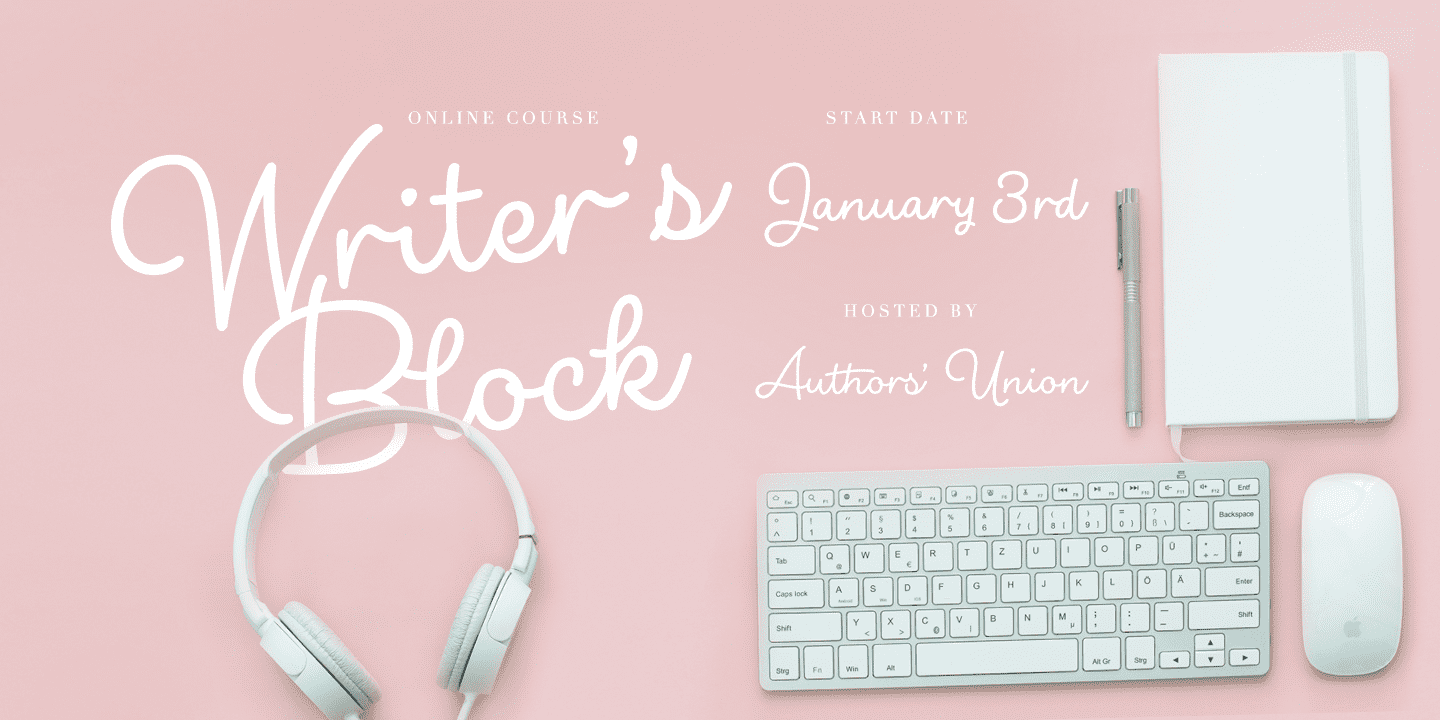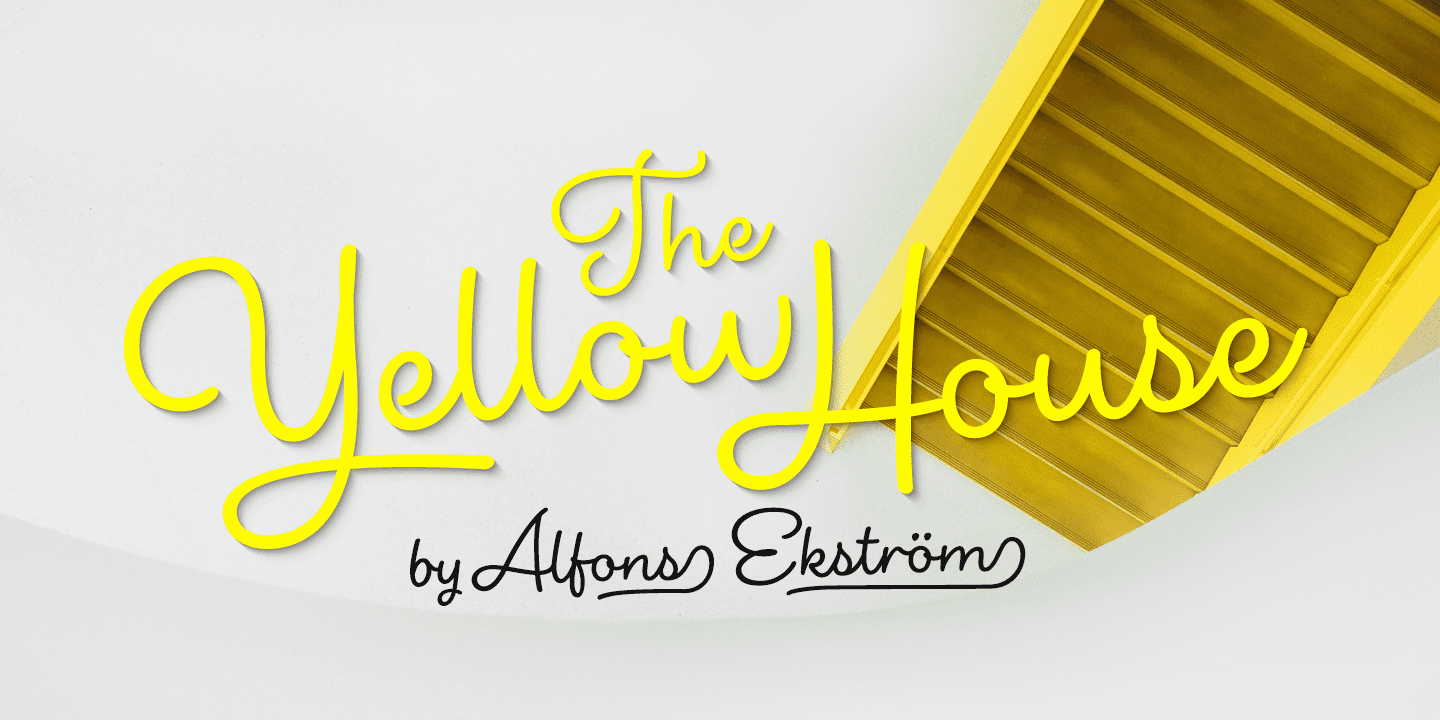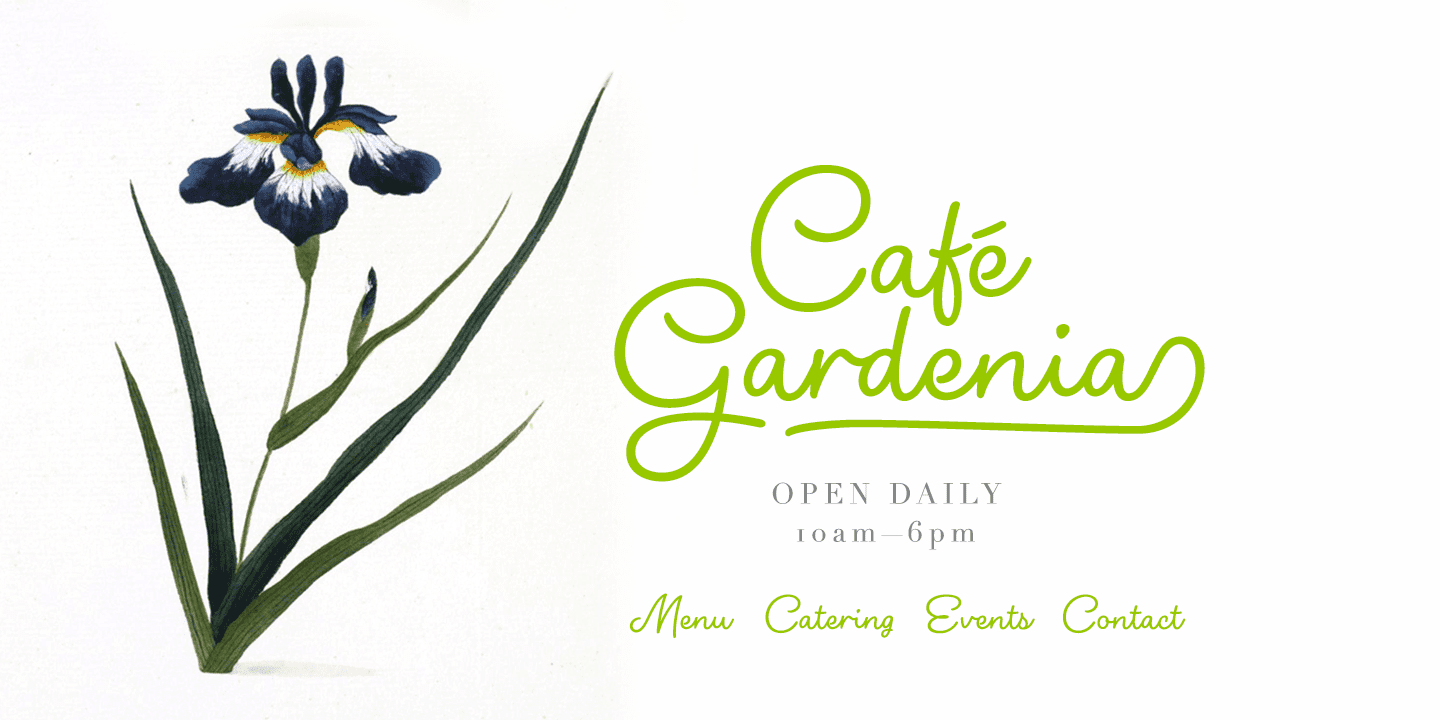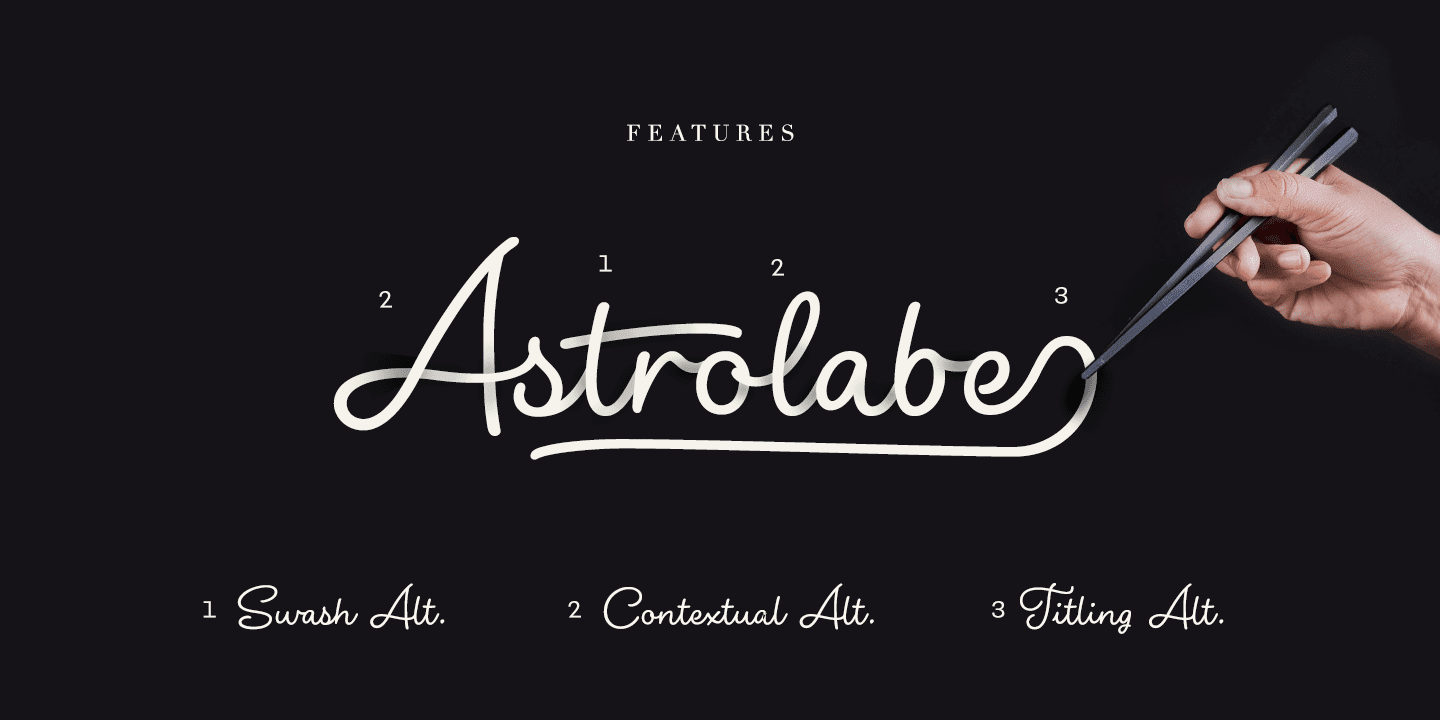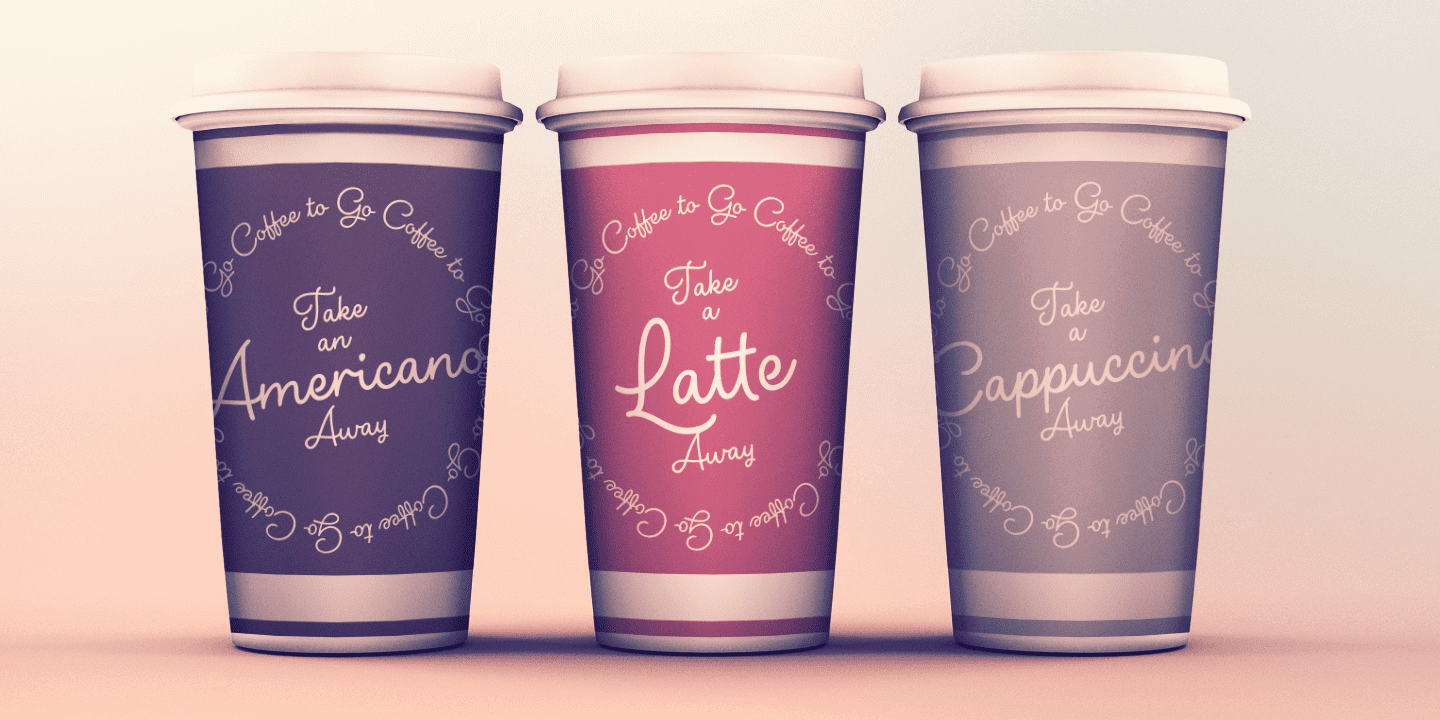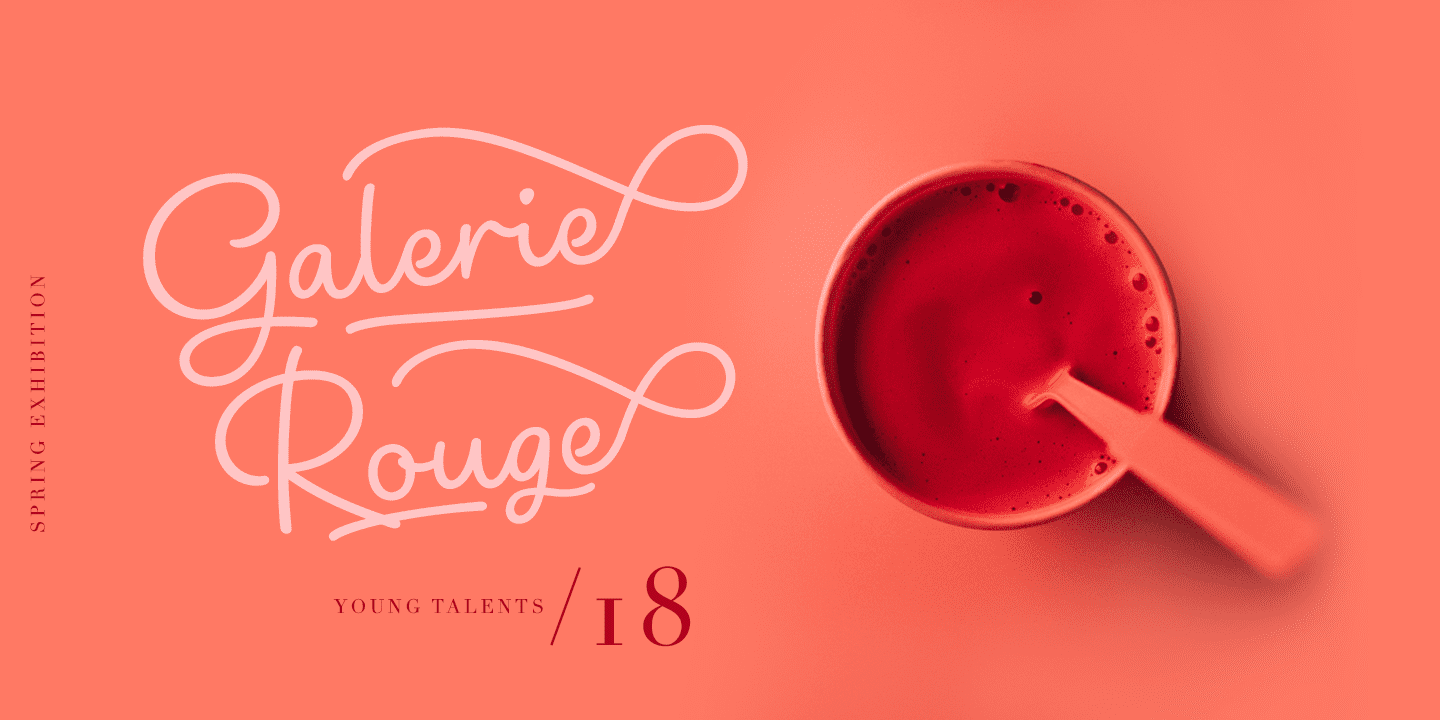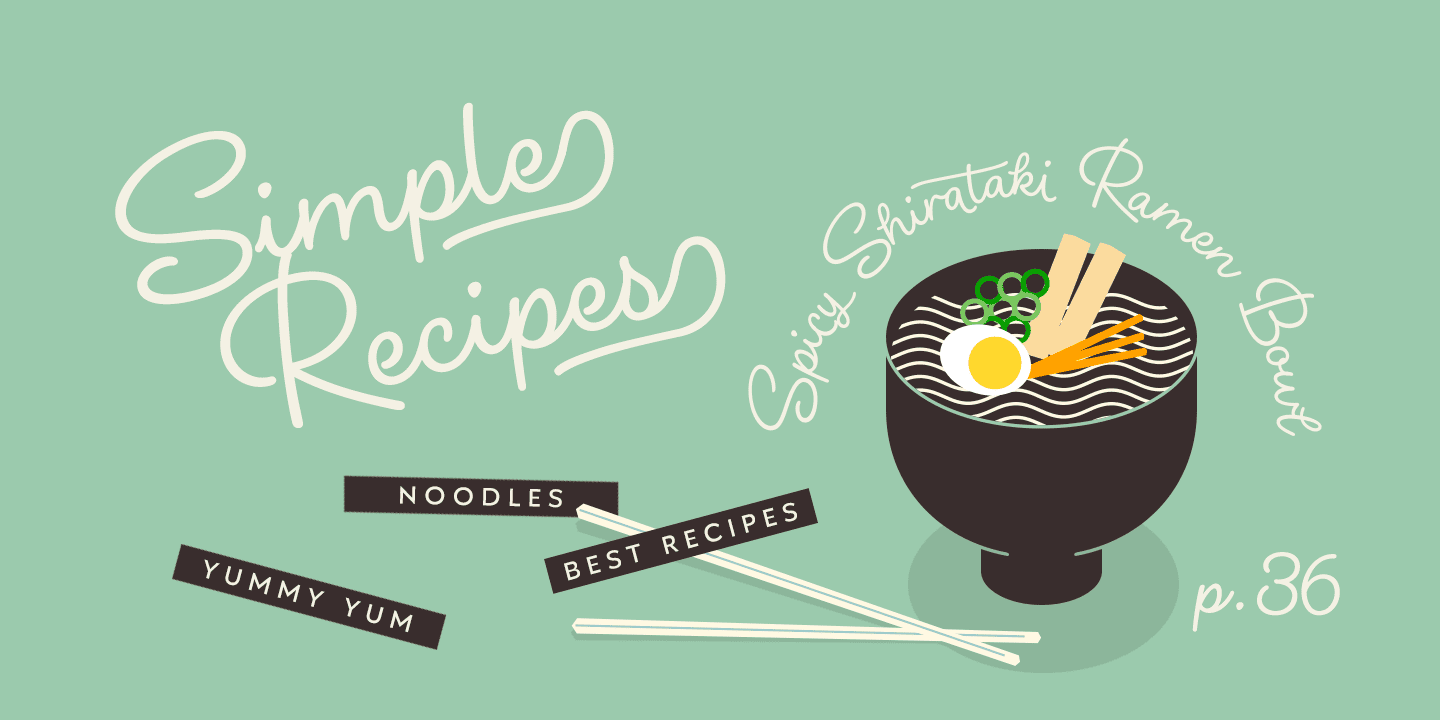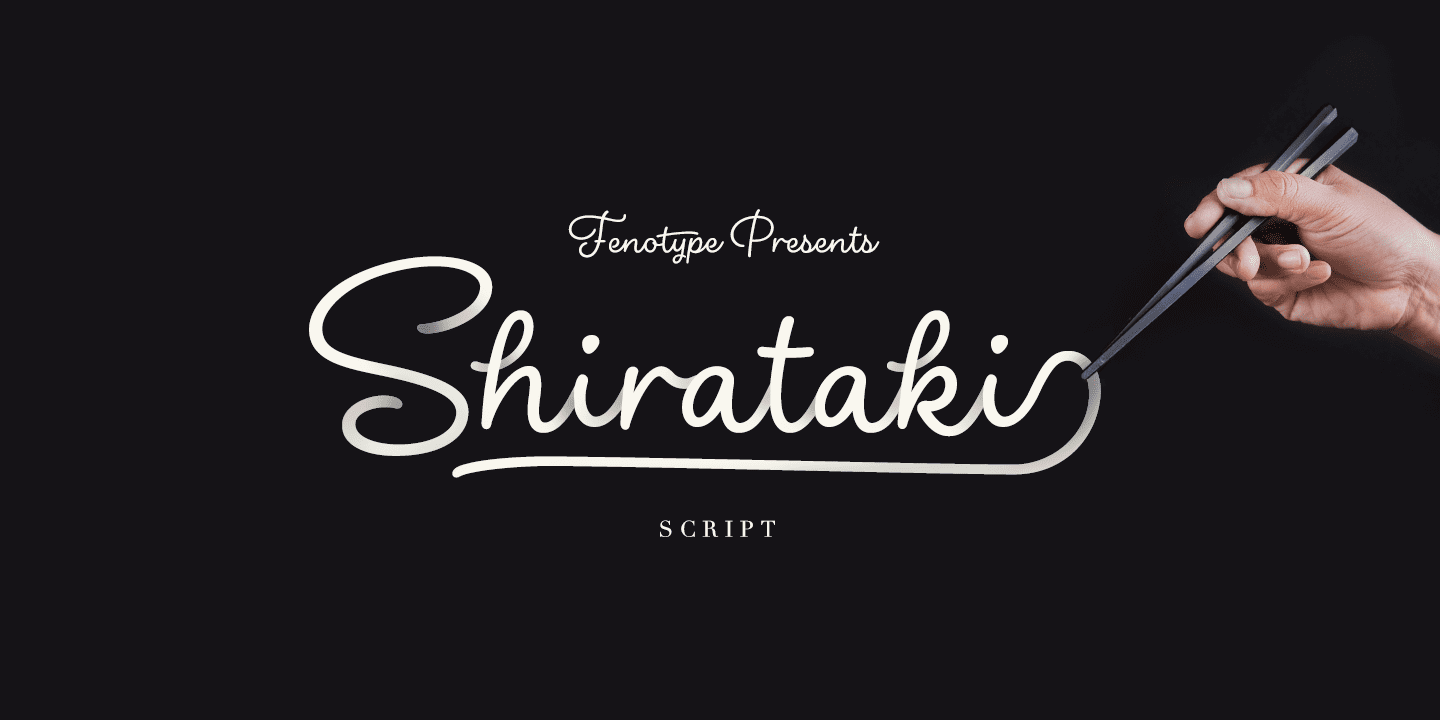
Shirataki uses Contextual Alternates to keep the connections smooth and it has Swash alternates for every standard letter. There’s even more alternates in glyph palette. There’s also a set of swash endings coded in Titling Alternates and set in lowercase letters. In addition there’s a selection of strokes set in uppercase A-H.
Shirataki is PUA encoded so you can access extras in most graphic design softwares even without OpenType support. In case you were wondering Shirataki are Japanese yam noodles.